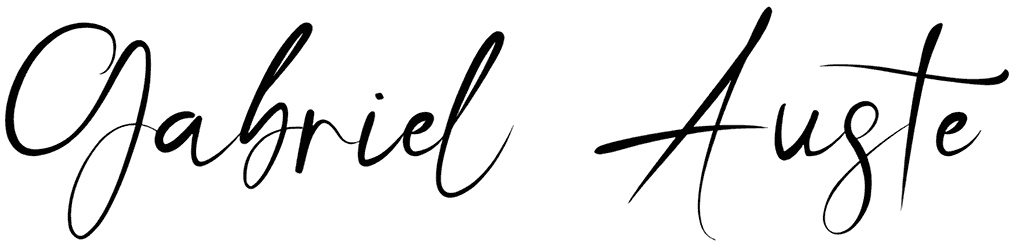
Gabriel Auste Font
If you want to take another step toward success in the realm of designing graphic content, you must be very attentive in selecting a suitable script font, and on this occasion, a magical masterpiece such as the Gabriel Auste can be really tempting.
Aside from the lack of good readability, this signature font can be included in a huge set of creative ideas, like animation posters, wedding invitations, stickers, product packaging, or storybook illustrations.